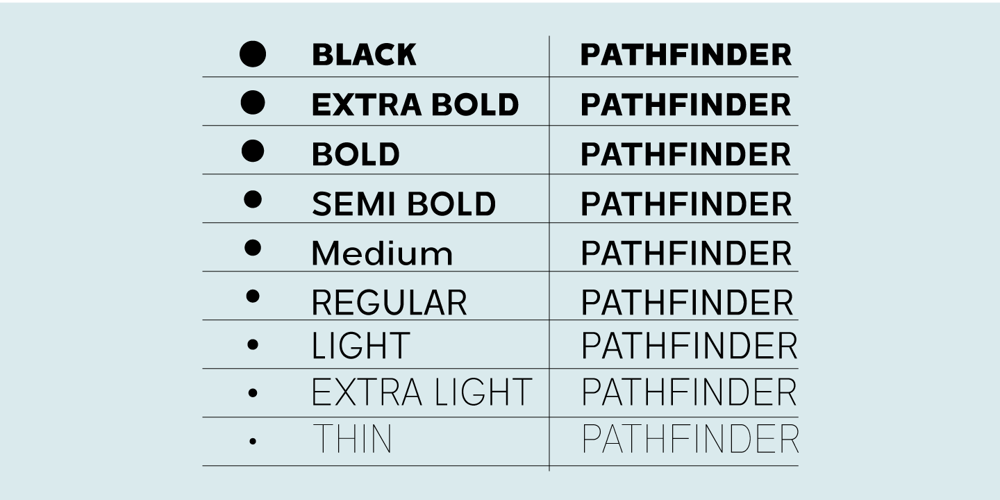
Molden Font Family was designed by Muhammad Suhery and published by Phonnastudio. Molden contains 9 styles and family package options. Molden is a thin and black sans-serif font. it has a family font. This font fits a wide variety of designs. It is convenient to use. It is so fit on your branding, logo, quotes, posters, book, and more